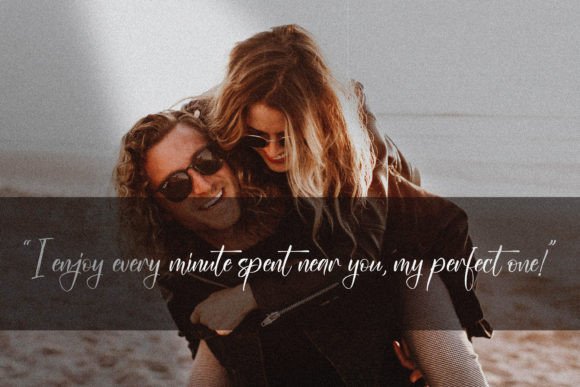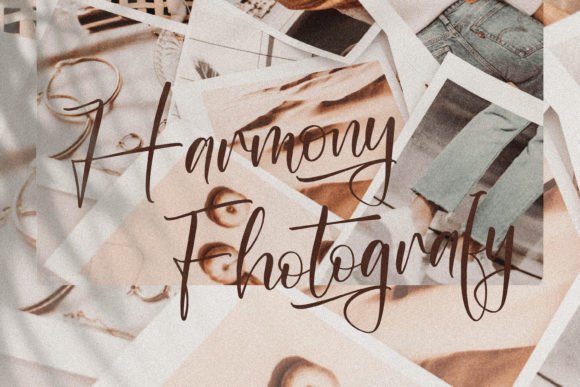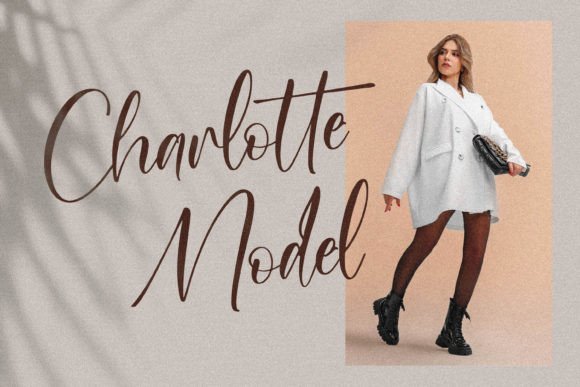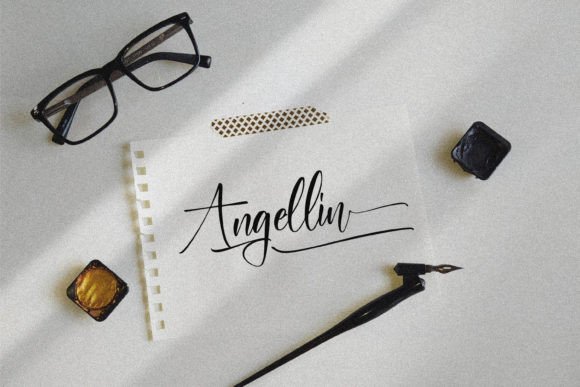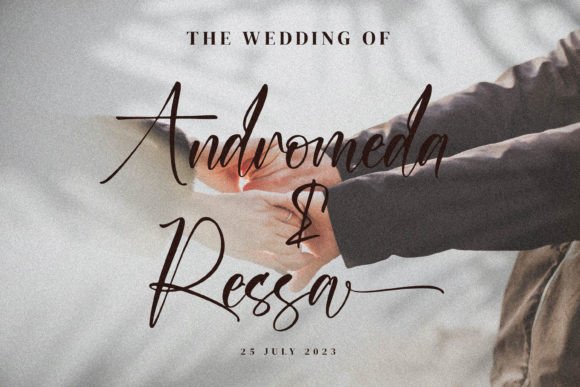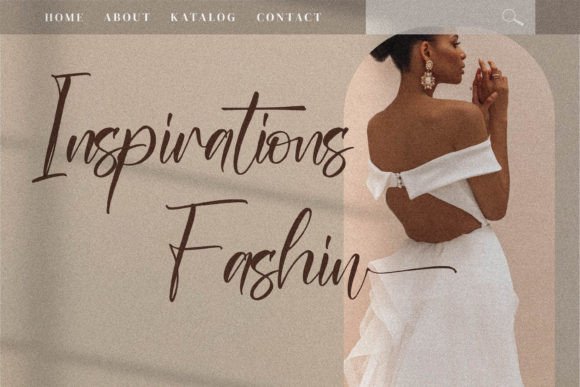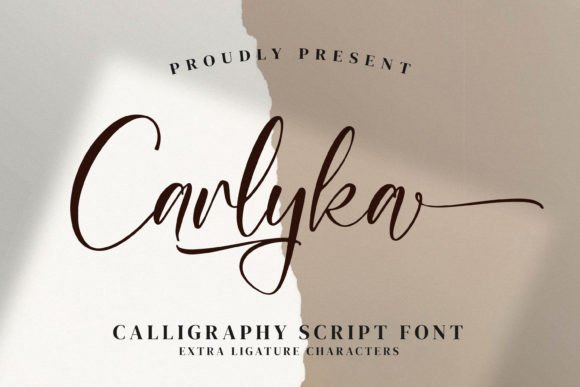
The Designer’s Delight: Carlyka Font
I’ll never forget the time I was working on a branding project for a trendy boutique hotel. I had spent hours agonizing over the perfect color palette and logo design, but when it came to choosing a font, I was stuck. That’s when I stumbled upon Carlyka, a dazzling script font that instantly elevated my design. In this article, I’ll share my love for Carlyka, its features, and how to make the most of it in your designs.
An Honest Review of Carlyka
• 💫 **Elegant and sophisticated**: Carlyka exudes luxury and refinement, making it perfect for high-end branding, wedding invitations, and editorial design.
• ✅ **Highly detailed**: The font’s intricate details and smooth curves create a beautiful, hand-crafted feel.
• 💪 **Versatile**: Carlyka can be used for a wide range of projects, from elegant headings to stylish body text.
• ⚠️ **Limited use in small sizes**: Due to its intricate details, Carlyka may not be the best choice for very small font sizes or body text.
• 🤔 **Some characters may require manual kerning**: While Carlyka is generally well-spaced, some character combinations may require manual adjustment for optimal results.
4. Explore Carlyka’s stylistic alternates, ligatures, and swashes to add personality to your text.
5. Explore Carlyka’s glyphs, ligatures, and stylistic alternates to add depth and interest to your text.
The Story Behind Carlyka
Carlyka was designed by a talented type designer who drew inspiration from classic calligraphy and elegant handwriting. With a passion for creating beautiful, functional fonts, the designer poured their heart and soul into crafting Carlyka, a font that would bring joy and sophistication to designers and crafters alike.
Is Carlyka suitable for body text? While Carlyka is primarily designed for headings and titles, it can be used for body text in larger sizes. However, its intricate details may not be suitable for very small font sizes.